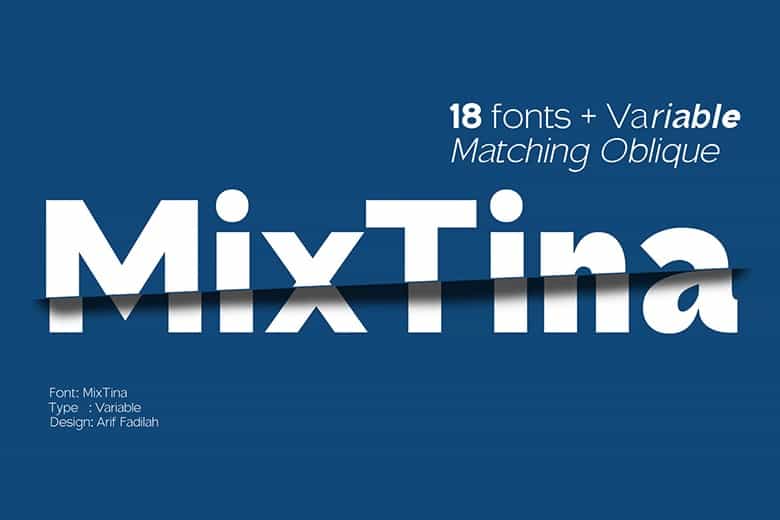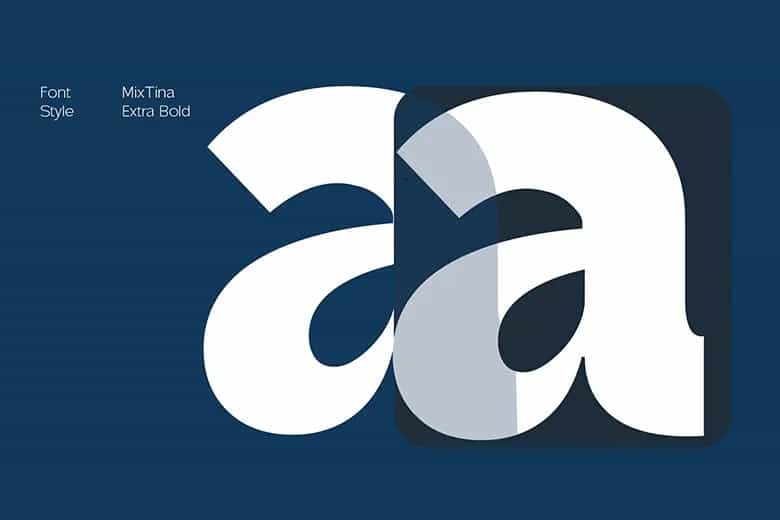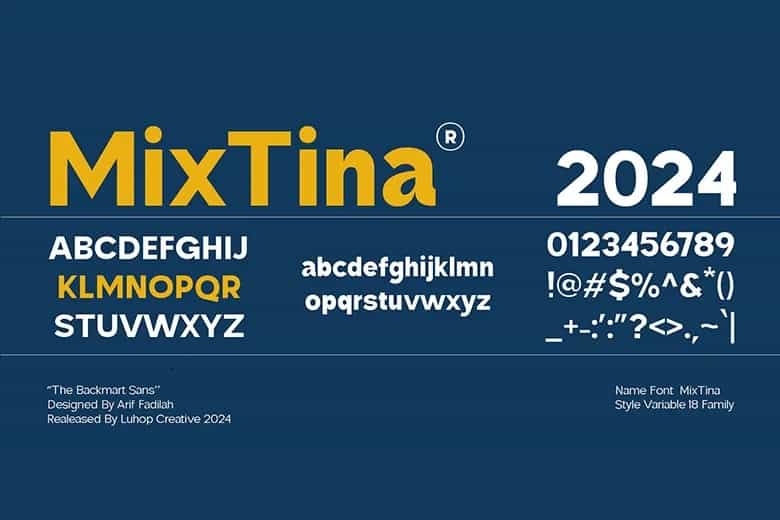
MixTina is a truly multipurpose sans serif font that is perfect for use in any kind of design. There are nine weight styles in this font, from the lightest to the boldest, which enables an accurate definition of typography for different situations. Regardless of whether a design is to be minimalistic, modern or creative, MixTina boasts a large weight range and is suitable for any design need.